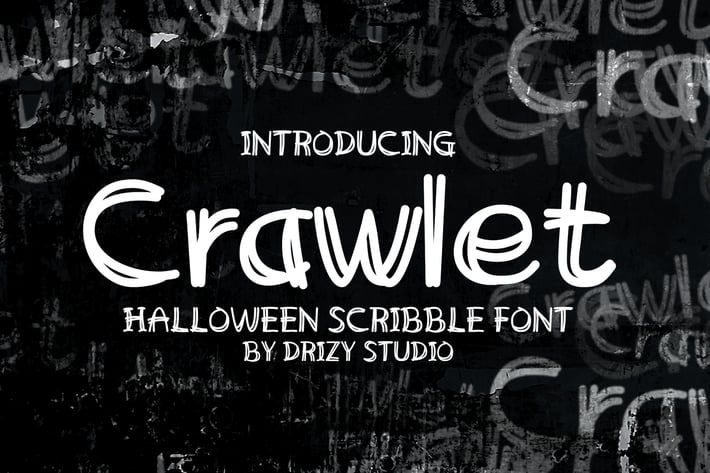
Crawlet - Scribble Font
Introducing Crawlet! a halloween scribble font from Drizy! It's suitable to complete your project especially for halloween and spooky theme.
Crawlet Features:
Uppercase & Lower Case
Numeral & Punctuations